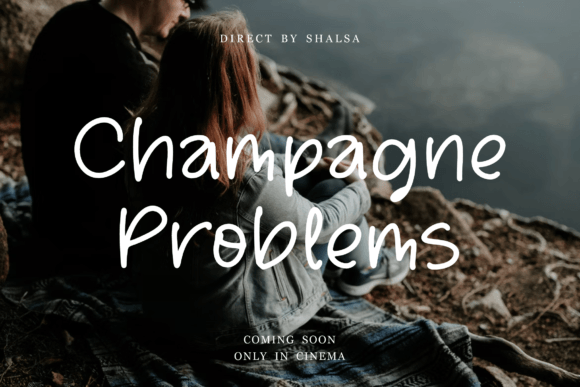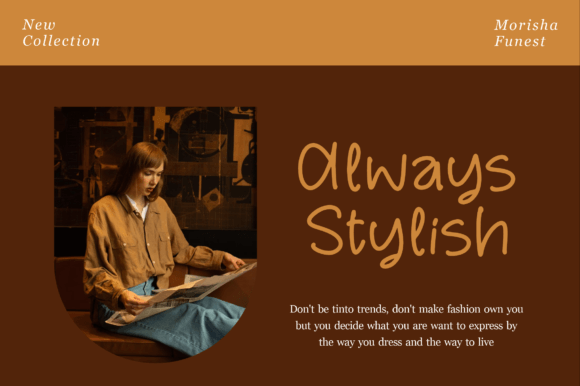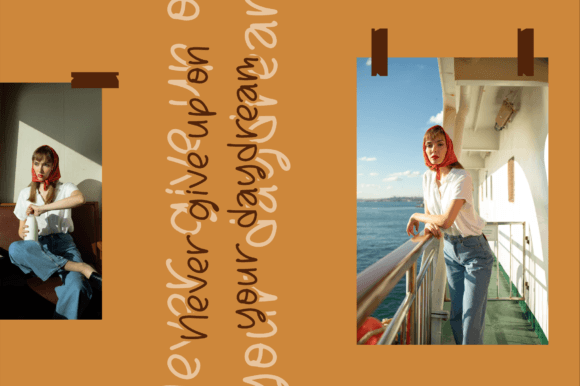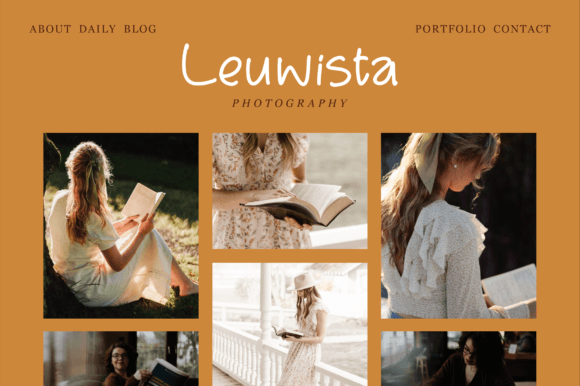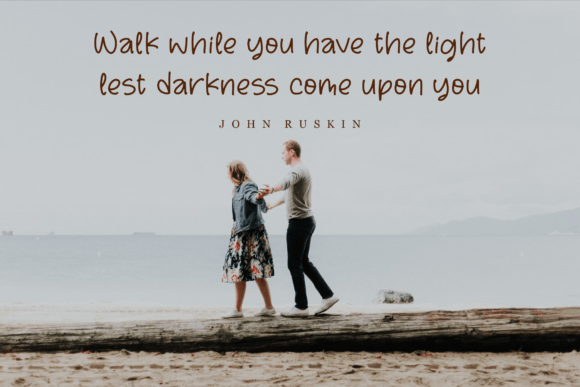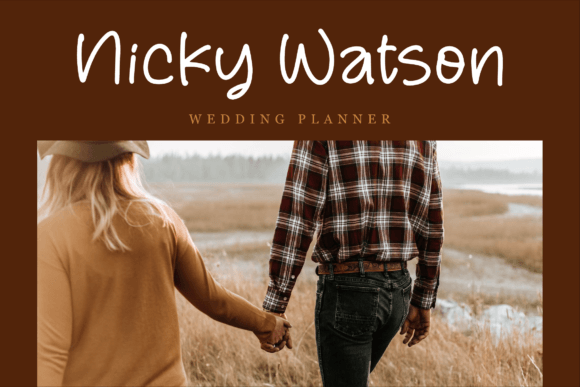
Introducing Baynore Mellow: The Ultimate Natural Handwritten Font for Your Creative Projects
Are you a designer or crafter looking for a beautiful and elegant font to elevate your creative projects? Look no further than Baynore Mellow, a stunning natural handwritten font from Letterfabric Studio. This versatile font is perfect for a wide range of applications, from logos and branding projects to homeware designs, product packaging, and more.
What Makes Baynore Mellow So Special?
Baynore Mellow is a unique and eye-catching font that boasts a natural, handwritten feel. Its elegant and fluid script makes it perfect for adding a touch of sophistication to any project. Whether you’re working on a logo, invitation card, or product packaging, Baynore Mellow is sure to make your design stand out.
One of the best things about Baynore Mellow is its versatility. This font is suitable for a wide range of projects, including:
- Logos and branding projects: Create a lasting impression with a custom logo that showcases your brand’s personality.
- Homeware designs: Add a touch of elegance to your home decor with Baynore Mellow.
- Product packaging: Make your products stand out on store shelves with beautiful, custom packaging.
- Mugs and ceramics: Create personalized gifts or products with Baynore Mellow.
- Quotes and posters: Add a touch of inspiration to your walls with beautifully designed quotes and posters.
- Shopping bags: Elevate your brand’s packaging with custom shopping bags.
- T-shirts and apparel: Create stylish and comfortable clothing with Baynore Mellow.
- Book covers and journals: Add a touch of sophistication to your book covers and journals.
- Name cards and invitation cards: Create beautiful and elegant invitations with Baynore Mellow.
- Greeting cards and labels: Add a personal touch to your gifts and products.
- Photography and watermark: Protect your photos with a beautiful and elegant watermark.
- Special events: Create stunning event materials, such as invitations, programs, and more.
Why Choose Baynore Mellow?
There are many reasons why Baynore Mellow is the perfect font for your creative projects. Here are just a few:
- Unique and eye-catching design: Baynore Mellow is a one-of-a-kind font that will make your projects stand out.
- Natural and handwritten feel: This font boasts a beautiful, natural feel that’s perfect for adding a touch of elegance to your designs.
- Versatile: Baynore Mellow is suitable for a wide range of projects and applications.
- Elegant and sophisticated: This font is perfect for adding a touch of sophistication to your designs.
Tips and Tricks for Getting the Most Out of Baynore Mellow
Here are a few tips and tricks for getting the most out of Baynore Mellow:
- Experiment with different colors and textures: Baynore Mellow looks great in a variety of colors and textures.
- Pair it with other fonts: Try pairing Baynore Mellow with other fonts for a unique and interesting look.
- Use it for headlines and titles: Baynore Mellow is perfect for headlines and titles, but it also works great for body text.